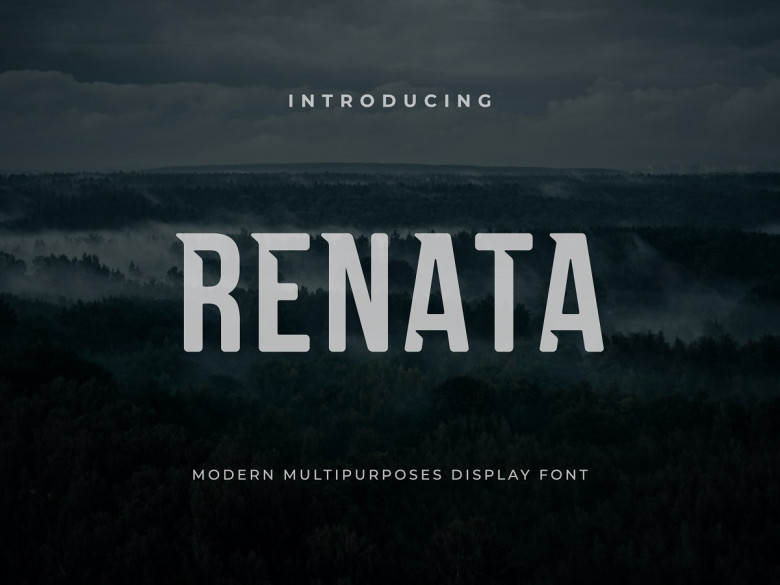
Renata Font
Renata is a bold and heavy lettered display font with a really cool look just. No matter the subject, this font will be an awesome addition to your fonts’ arsenal as it has the ability to beautify any creation.
Renata Display Font